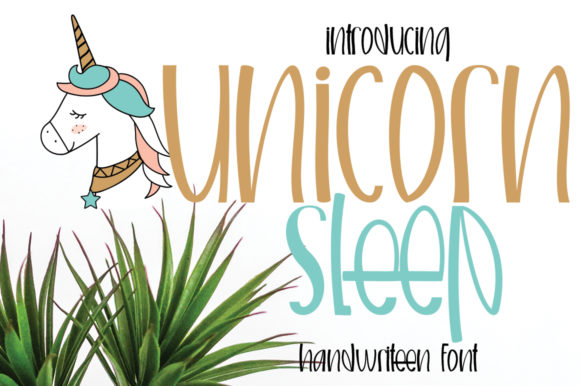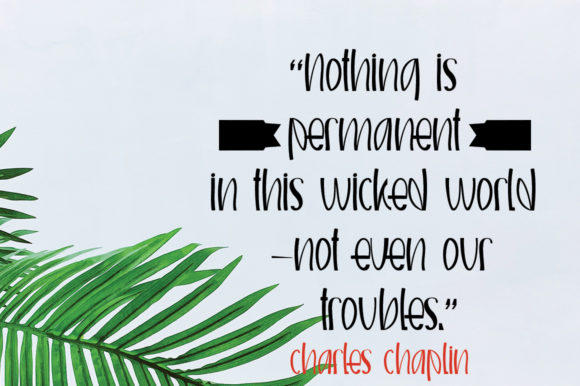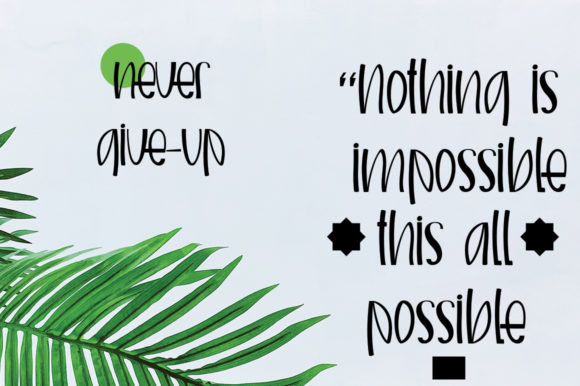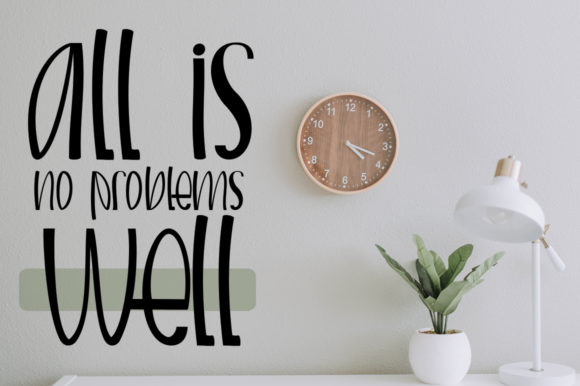
Unicorn Sleep Font
About Unicorn Sleep Font
Unicorn Sleep is a cute and friendly script font. It features an incredibly original style, while still keeping a friendly feel. Unicorn Sleep is the perfect font for making original and outstanding designs.